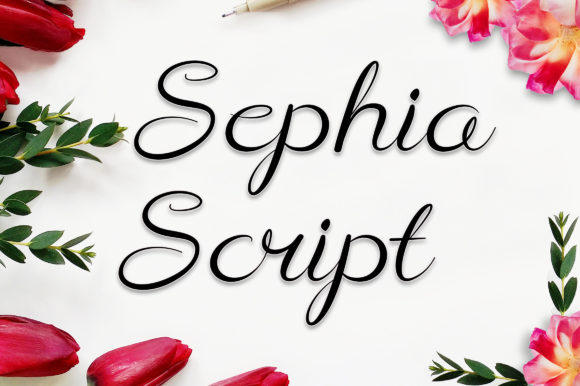
Sephia Script: A Fresh Take on Elegant Typography
In the world of typography, finding a script font that balances timeless elegance with a clean, contemporary feel can be a challenge. Many elegant scripts can feel overly formal or dated, while modern ones sometimes lack warmth. Sephia Script navigates this space beautifully. It’s an elegant script font that carries a distinct personality—stylish and classic, yet refreshingly current. This isn’t just another decorative typeface; it’s a versatile design asset crafted to make your work look sophisticated and genuinely attractive.
At its core, Sephia Script is a premium font designed for impact. Its letterforms flow with a natural, connected rhythm that feels both polished and approachable. The strokes have a confident weight, ensuring legibility even at smaller sizes, while the subtle flourishes and thoughtful alternates add a layer of custom, handcrafted charm. It’s the kind of script font that doesn’t scream for attention but confidently commands it through its refined simplicity. Whether you’re setting a headline, crafting a logo, or adding a personal touch to a digital project, this typeface brings an inherent sense of style.
Where Sephia Script Truly Shines
The true strength of a creative font like Sephia Script lies in its application. Its personality is versatile enough to adapt to a wide range of projects, adding a consistent thread of elegance wherever it’s used. For entrepreneurs and small business owners, it’s a powerful tool for brand identity. Imagine it gracing the logo for a boutique skincare line, a wedding stationery business, or a high-end café. The font immediately communicates a sense of care, quality, and artisanal craftsmanship.
In packaging design, Sephia Script can elevate a product from ordinary to premium. Use it for product names on labels for gourmet foods, craft beverages, or luxury candles. Its elegance helps justify a higher price point by visually conveying the quality inside. For publishers and bloggers, it’s a fantastic choice for editorial design. Think chapter headings in a lifestyle book, pull quotes in a magazine, or the title of a blog post on fashion or interior design. It draws the reader in and sets a refined, trustworthy tone for the content that follows.
Digital creators will find it equally useful. In web design, it can be used sparingly for hero text or call-to-action buttons to add a touch of class without compromising overall site readability. For social media graphics, it’s a standout choice for quotes, promotional announcements, or story overlays. Its distinctive style helps your content stop the scroll and be remembered. Even for personal projects like invitation cards, thank-you notes, or custom planners, Sephia Script adds that professional, polished finish that makes everything feel more special.
Making the Font Work for You: Practical Guidance
Choosing the right font is only half the battle; using it effectively is what makes the difference. When evaluating if Sephia Script fits your project, consider the overall mood you want to evoke. It excels in contexts where elegance, femininity, luxury, or personal connection are key themes. It might be less suited for technical manuals or aggressive, high-energy sports branding, but for everything in that elegant and attractive space, it’s a strong contender.
One of the most important skills in using a display font like this is mastering font pairing. Sephia Script needs a partner that complements without competing. For a clean, modern hierarchy, pair it with a simple, geometric sans serif font. The contrast between the flowing script and the structured sans serif creates a dynamic and readable layout. For a more classic, editorial feel, a simple serif font with moderate contrast can work beautifully. The key is to let Sephia Script be the star for headlines or key phrases, and use its partner for body text.
Before you start, take time to explore the font’s full character set. A well-designed commercial font often includes stylistic alternates, ligatures, and swashes. Sephia Script likely offers these, allowing you to customize the look—swapping out a capital ‘S’ for a more ornate version or connecting certain letter pairs more fluidly. This level of control is what separates a good design from a great one.
Always test for readability in context. A script font can look gorgeous in a 72-point headline on your screen but might become difficult to read in a 12-point caption on a mobile phone. Print out samples or view them at actual size on different devices. Ensure there is enough contrast between the text and its background, especially for digital applications where screen glare can be an issue.
By thoughtfully integrating Sephia Script into your creative toolkit, you’re not just adding a font—you’re adopting a design partner with a distinct voice. Its ability to blend classic elegance with modern sensibility makes it a valuable asset for anyone looking to create work that is not only beautiful but also effective and memorable. Add this font to your most creative ideas, and watch how it helps them stand out with quiet confidence and undeniable style.